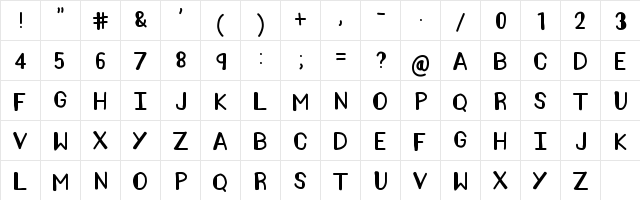
AMELIA POND Medium
Design Context for AMELIA POND Typeface
AMELIA POND takes a measured approach to typography — its balanced proportions and neutral character make it a reliable workhorse for both digital and print work.